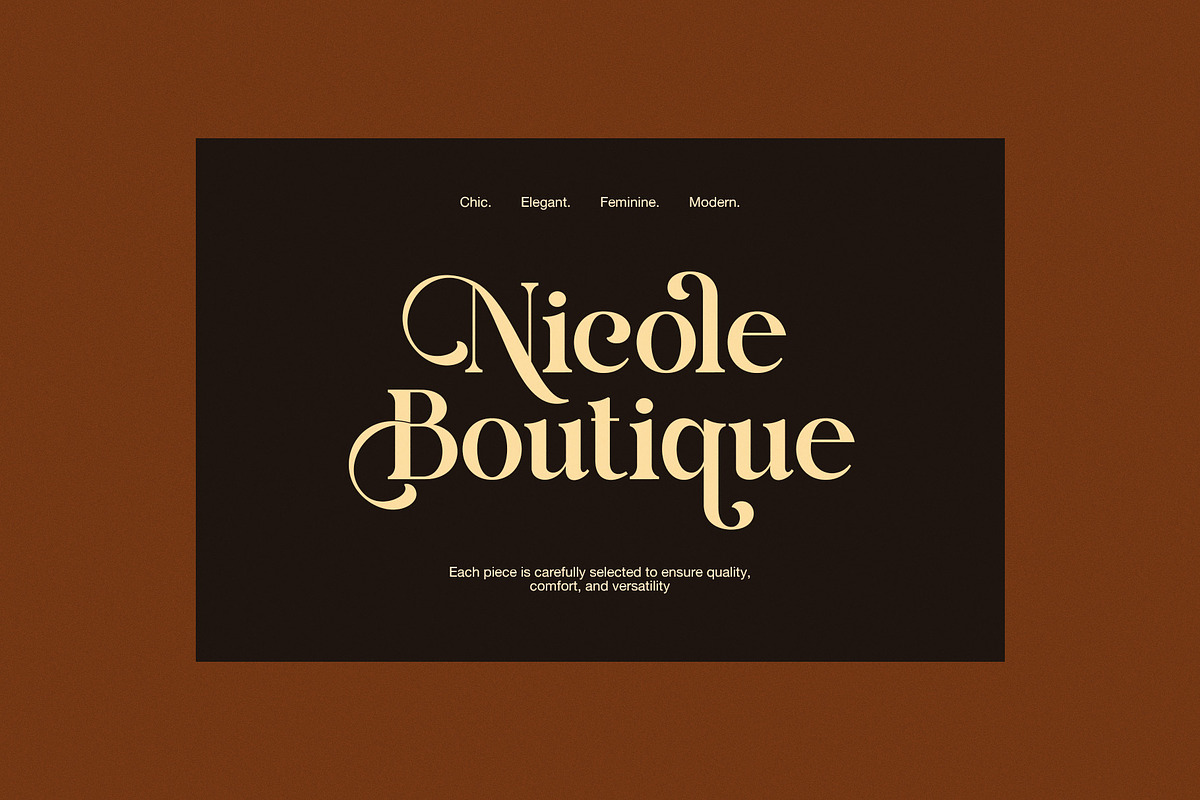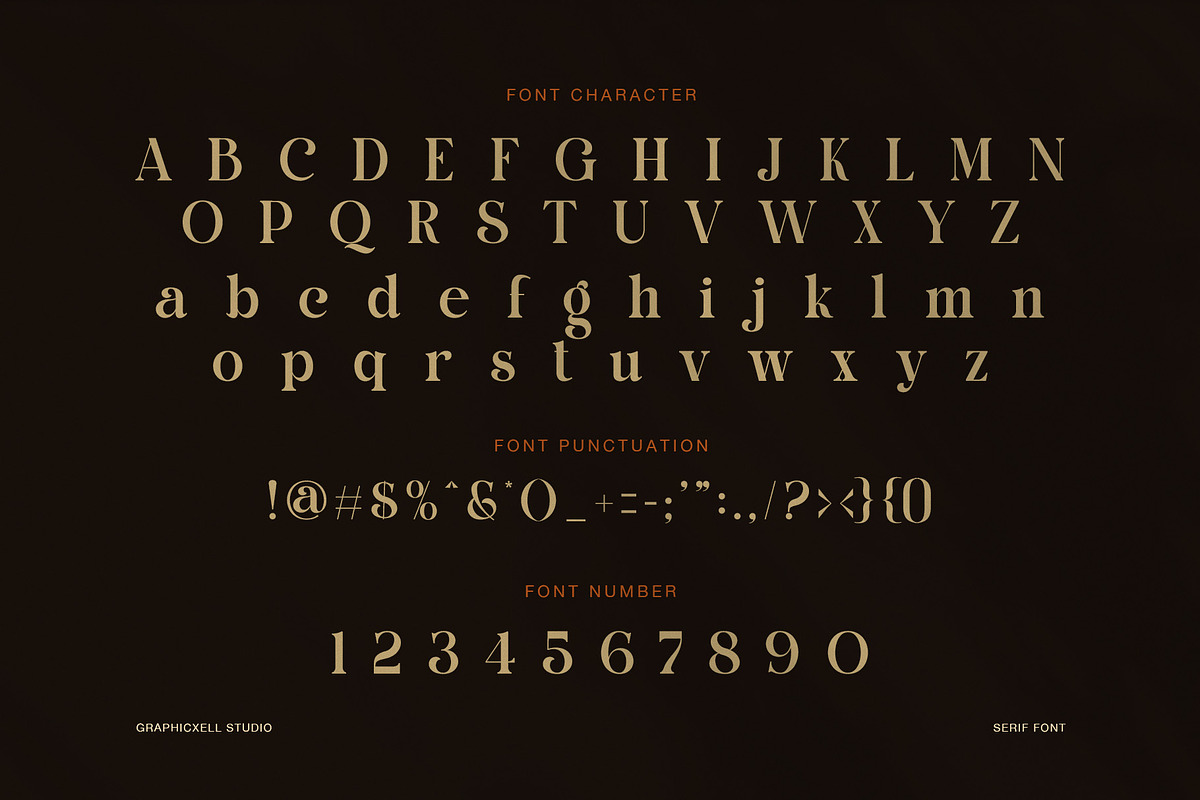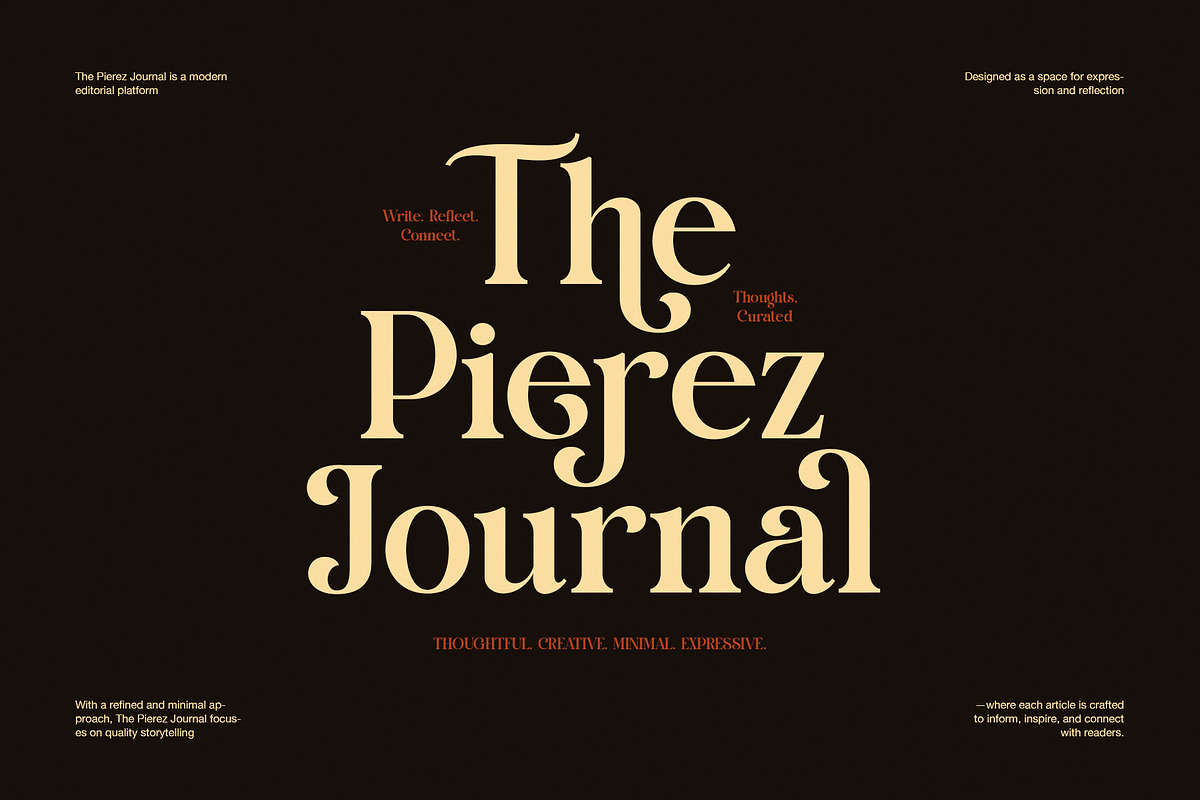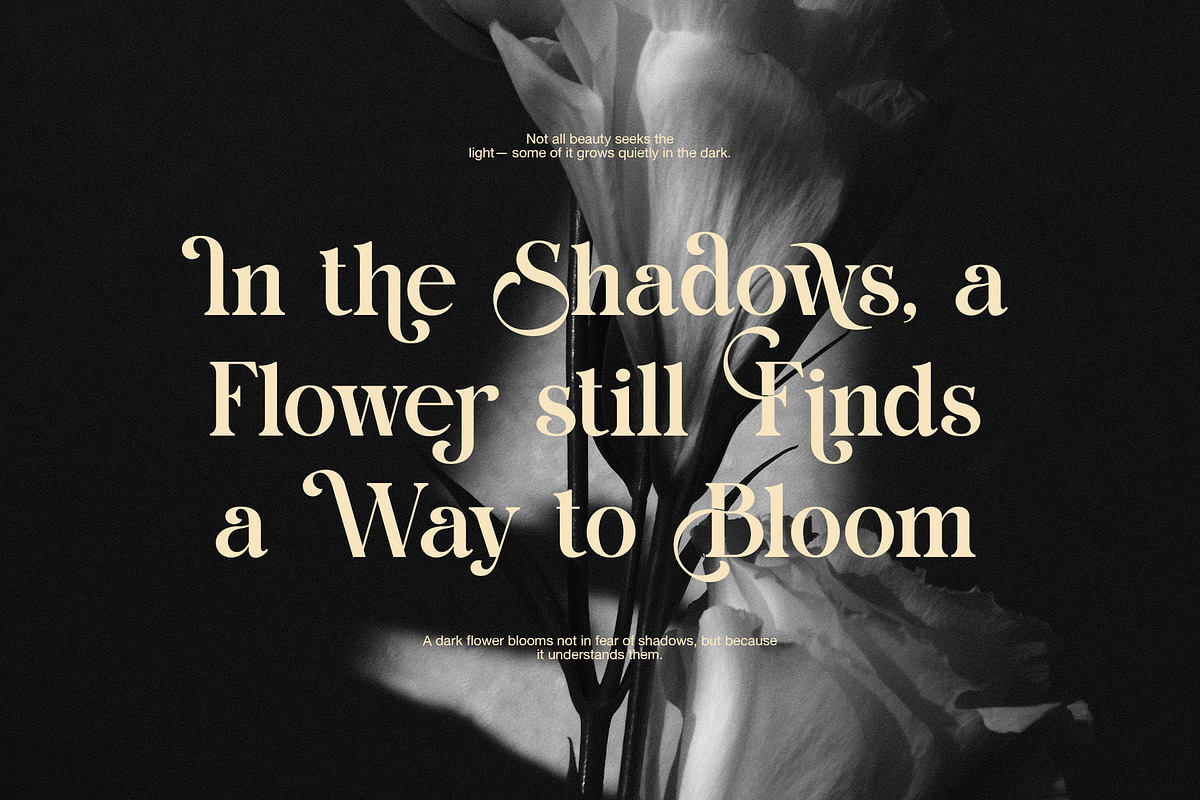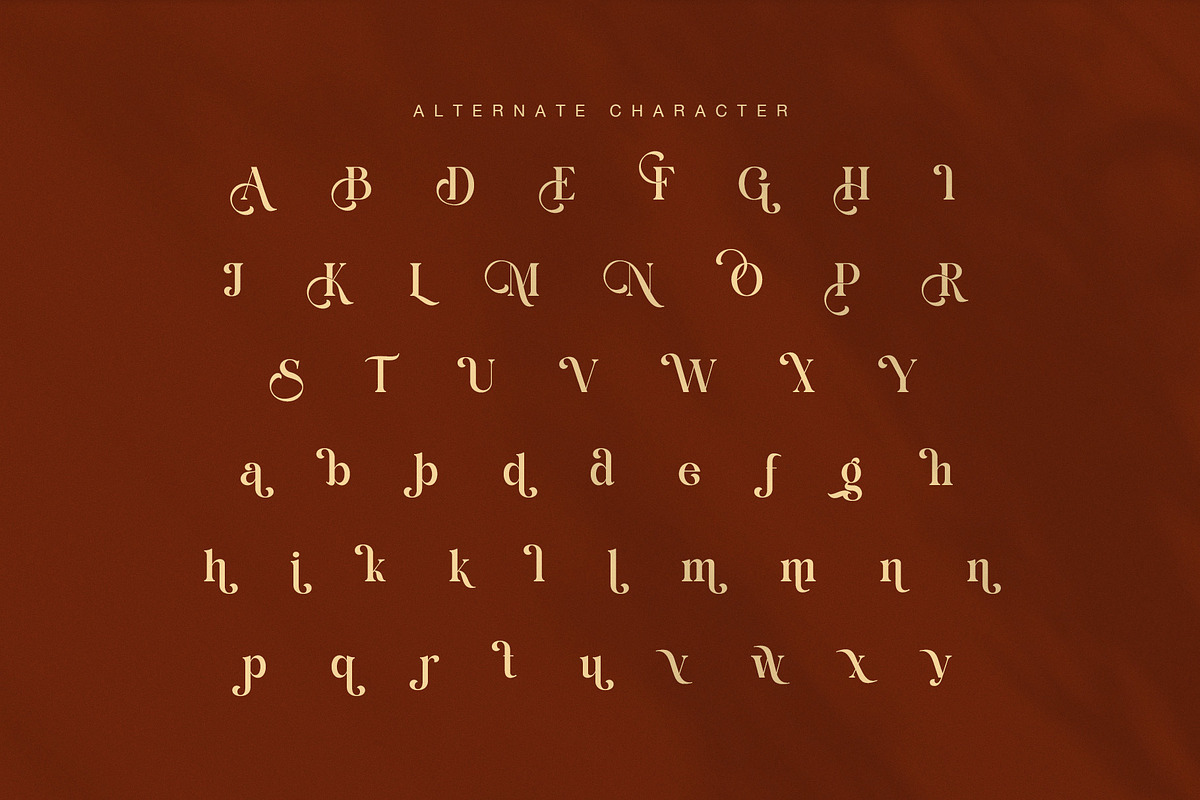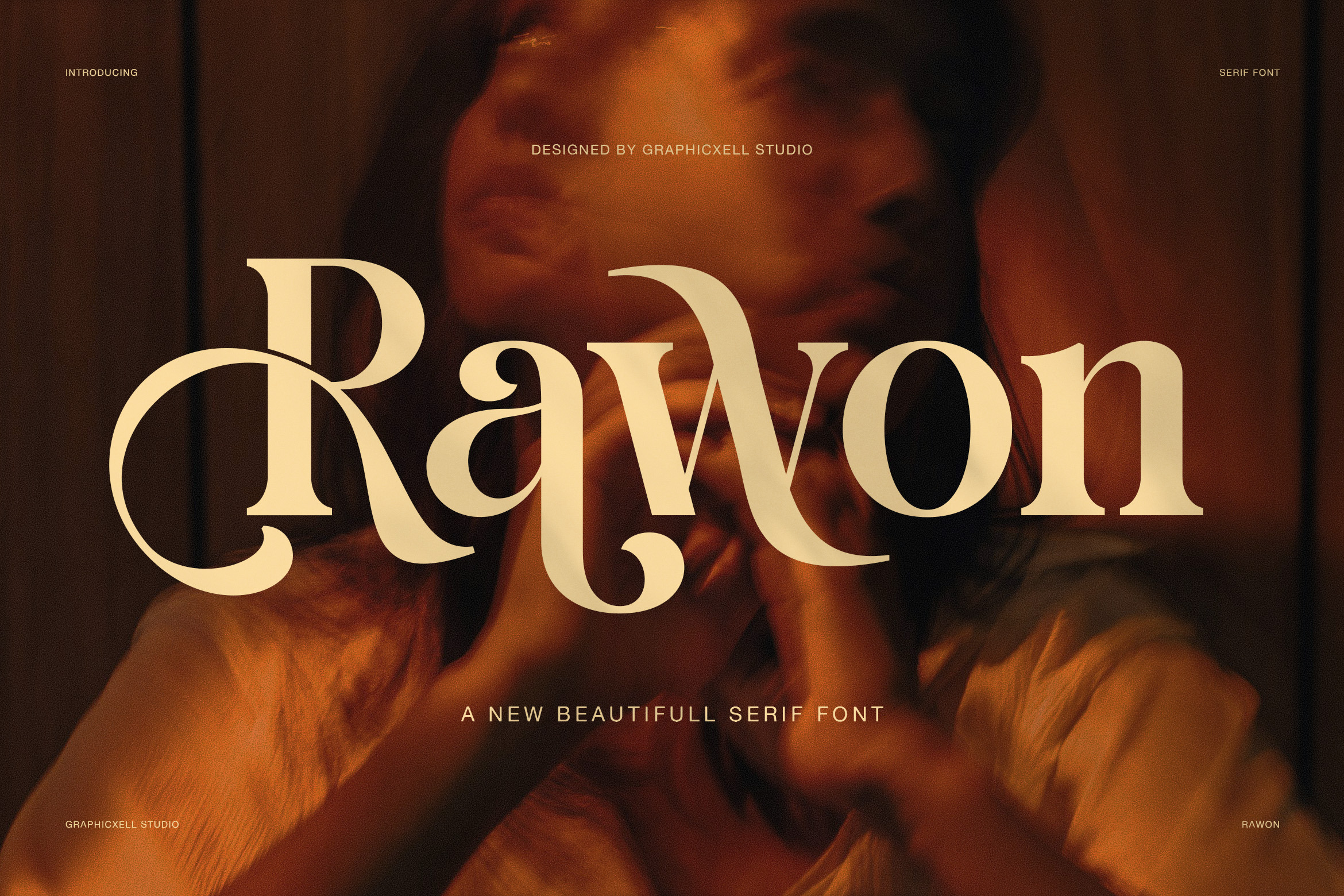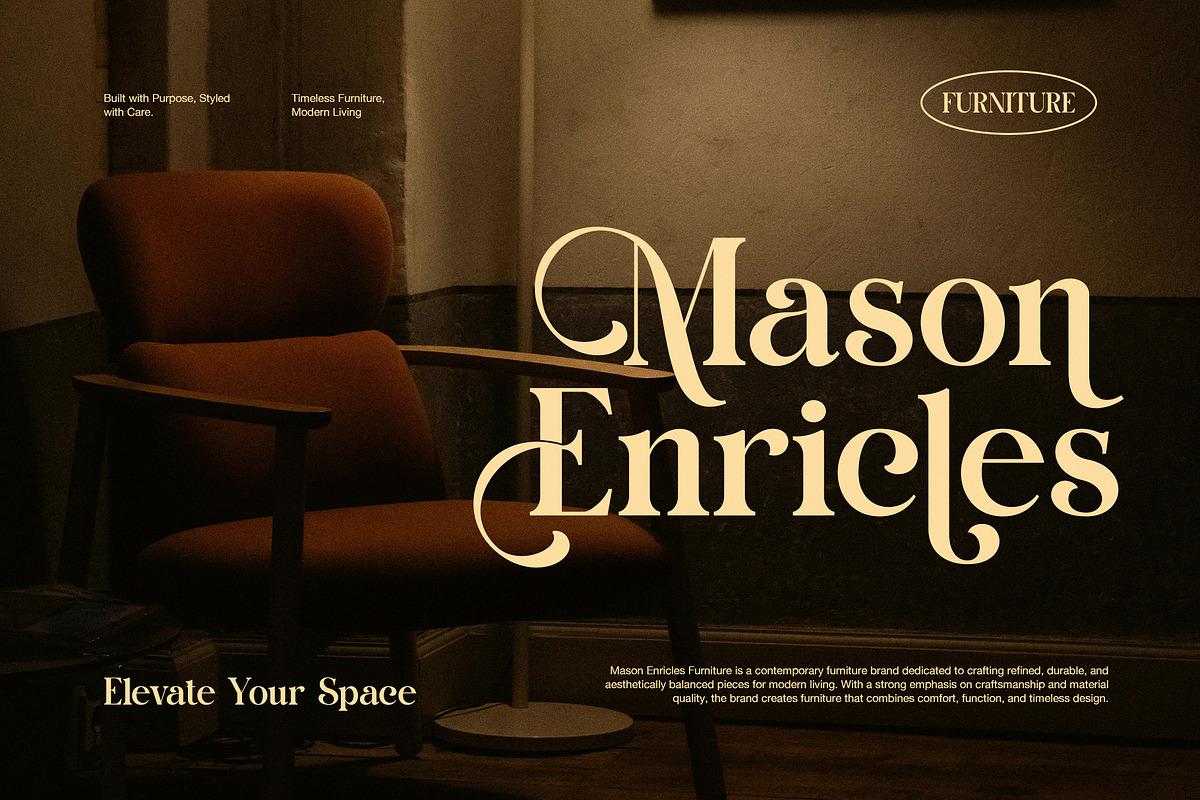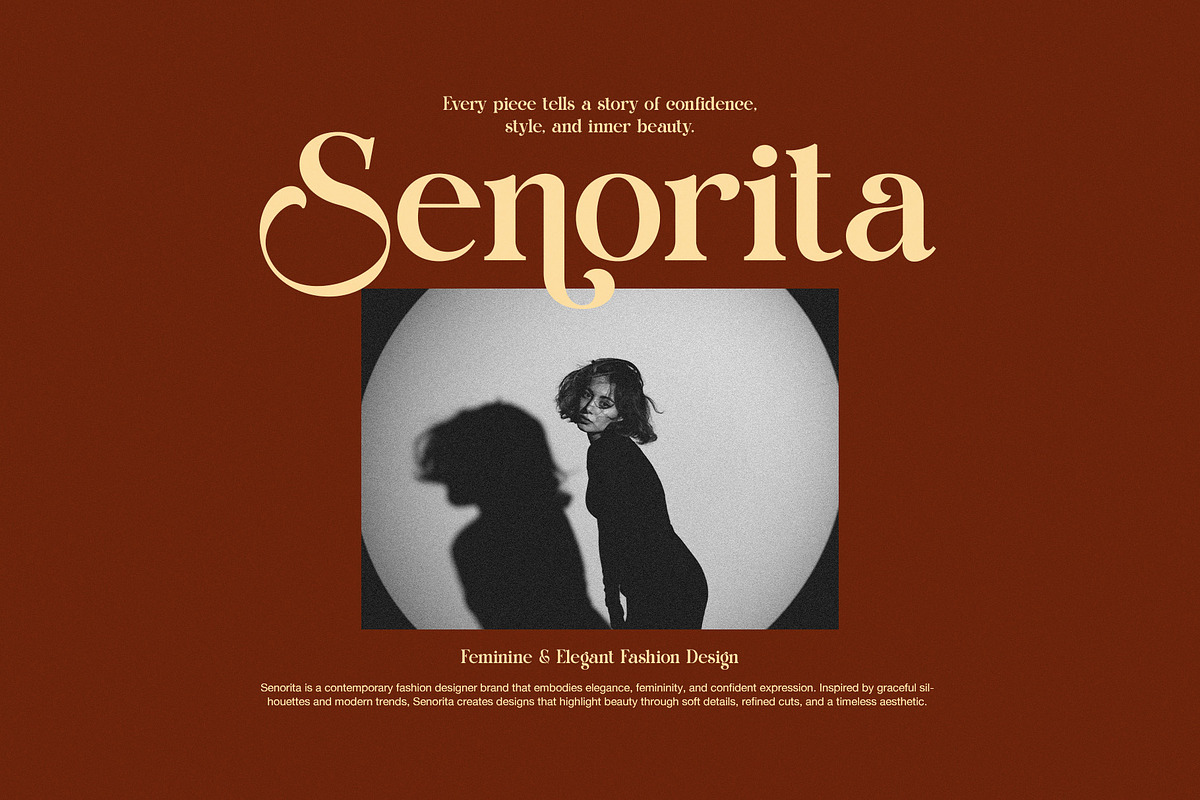
Rawon Elegant Serif Font
Rawon Elegant Serif Font is a stylish display serif with a bold mood and a graceful soul. It blends classic serif structure with artistic curves, so it feels rich, expressive, and highly memorable. At first glance, Rawon looks elegant. However, the deeper you study it, the more personality it reveals through its sweeping terminals, soft contrast, and refined alternate forms.
The main shape of Rawon is built for display use. Its uppercase letters feel poised and dramatic, while the lowercase set adds warmth and charm. Moreover, the curved strokes and flowing details create movement inside each word. Because of that, Rawon does not look flat or plain. Instead, it gives headlines, logos, and brand names a strong visual voice.
This font also stands out through its alternate characters. Several alternates bring a decorative flair, yet they still feel balanced and usable. Therefore, Rawon works well when you want custom-looking typography without losing clarity. In the display examples, the font looks beautiful in editorial titles, journal covers, furniture branding, boutique names, fashion layouts, floral quotes, and premium product visuals. As a result, it feels flexible across both romantic and modern design themes.
Rawon Elegant Serif Font is a strong choice for designers who want beauty with presence. While some serif fonts feel too formal, Rawon feels more alive and expressive. In addition, its punctuation and number set support polished brand systems, packaging, and social media content. So, if you need a serif font that feels elegant, feminine, artistic, and premium, Rawon gives your design a distinct and elevated look.
Best uses for Rawon
luxury branding
logo design
editorial headlines
boutique packaging
fashion campaigns
wedding stationery
beauty branding
journal covers
furniture branding
social media graphics
Why designers will love it
Rawon Elegant Serif Font helps short text look refined and full of character. Furthermore, it adds a custom feel through elegant alternates and curved serif details. Because it is decorative yet readable, it suits both expressive branding and polished layout work. In the end, Rawon is a beautiful serif font for designers who want timeless elegance with a modern, artistic touch.